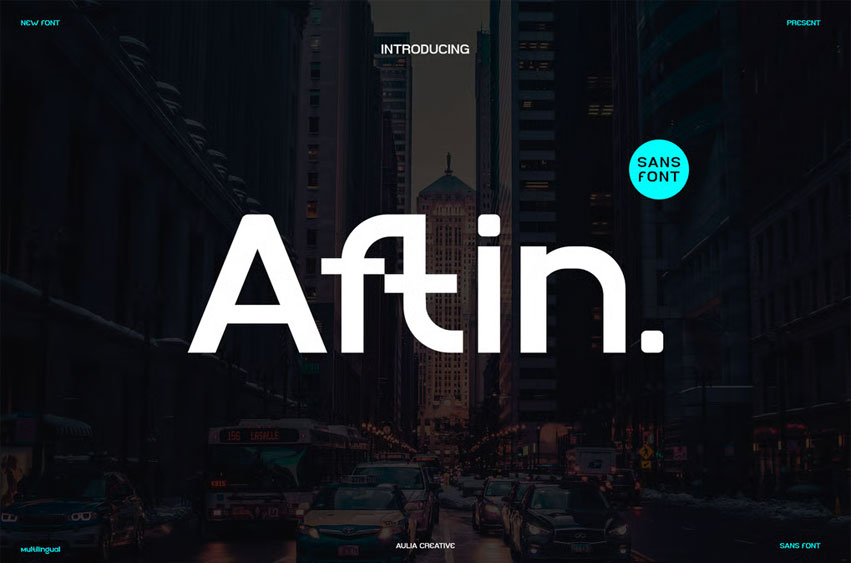
Aftin Font
Aftin Font Sans Font is and awesome and authentic display font.
This font is well-suited for a variety of contexts, such as print design, promotional materials, or magazine layouts.
• Number & Symbol
• UPPERCASE, lowercase
• Legatures